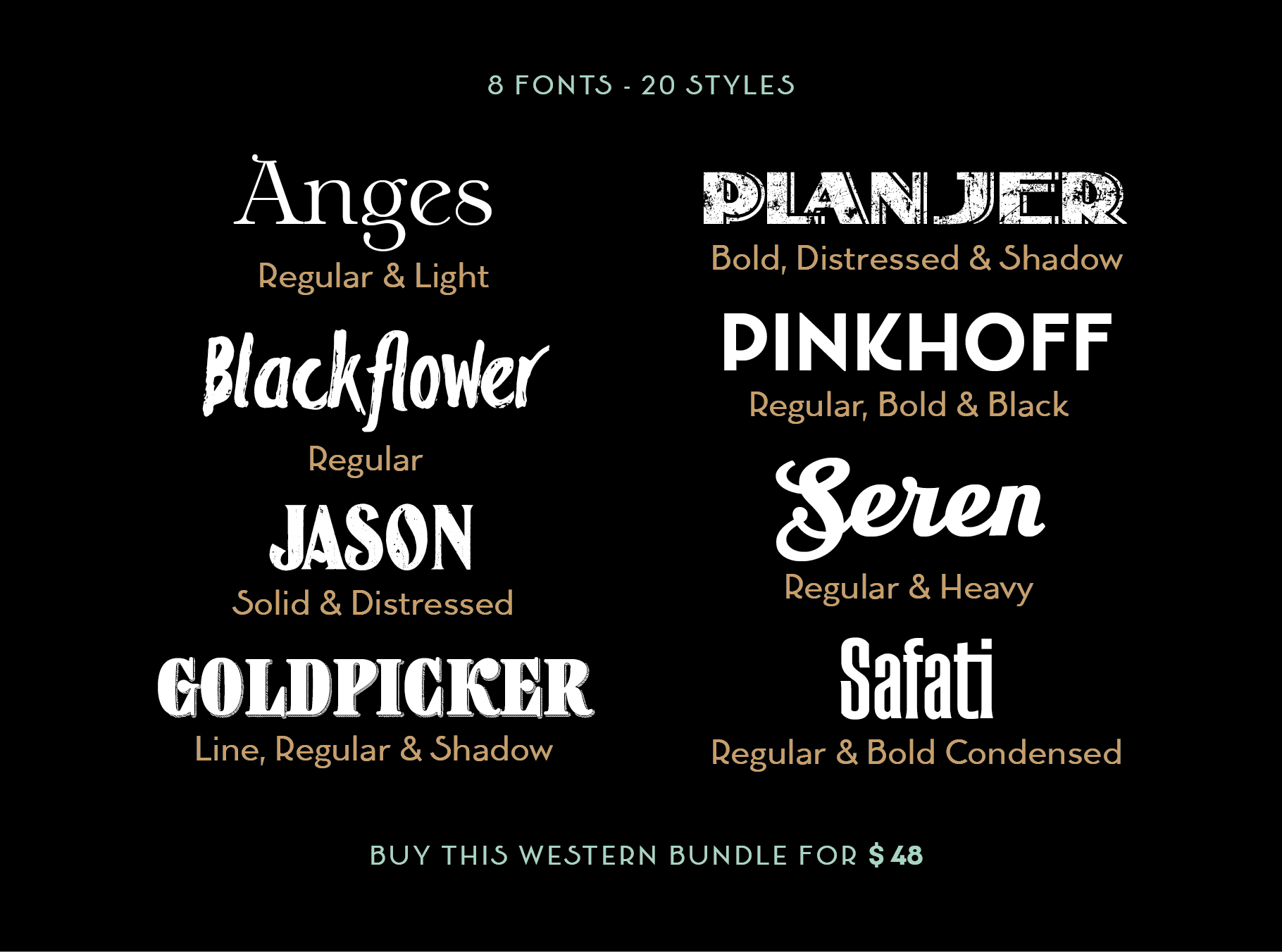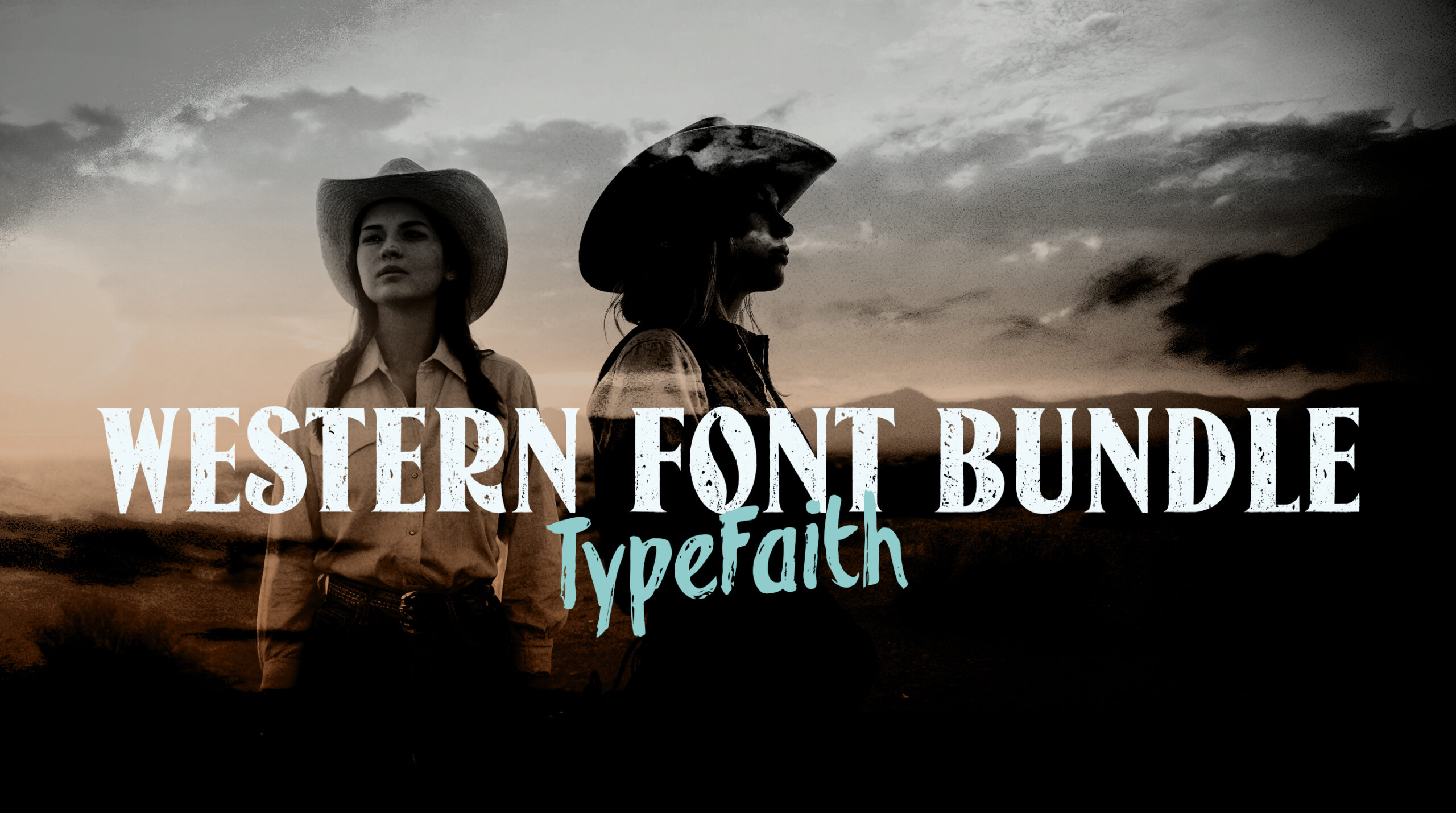
Western Font Bundle
TypeFaith Western bundle! Eight fonts with 20 styles total to make your Western type project.
Anges – a lovely, playful font with a late-1800s style.
Blackflower – the rough brush you need.
Jason Caps – the typical Western woodblock type with subtle serifs.
Goldpicker – three styles for your whiskey bottle.
Planjer – rough and solid on the prairie.
Pinkhoff – when style comes around in the West.
Seren – this is the script to combine.
Safati – pragmatic condensed with that subtle Western feel.